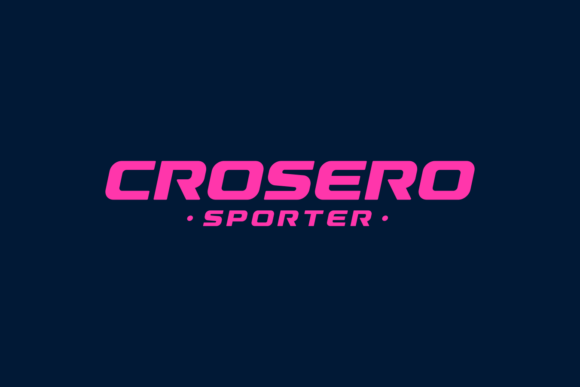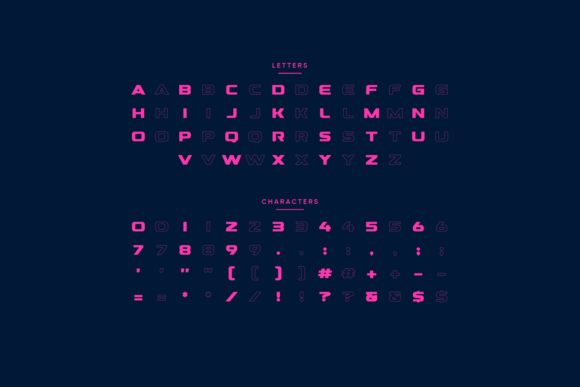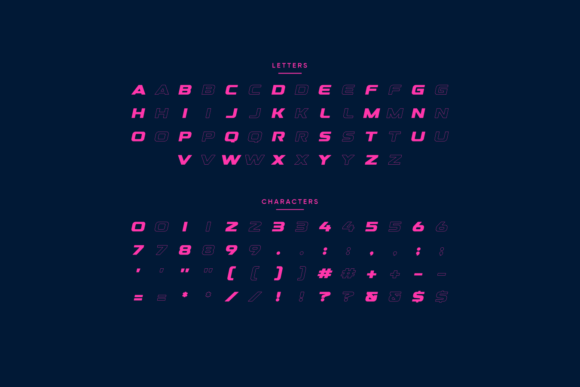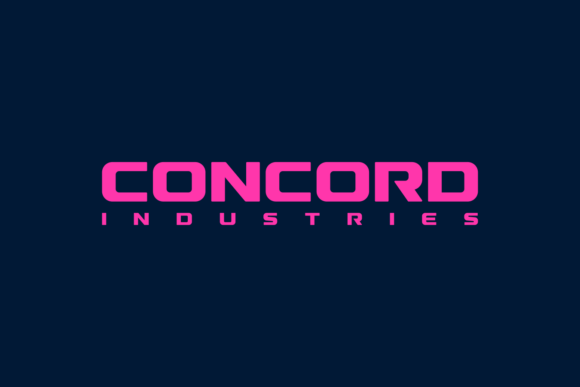
Enter the Cornsro Font, a game-changing modern display typeface engineered to deliver a high-impact, high-speed aesthetic. With its sleek, aerodynamic curves and ultra-wide, italicized stance, Cornsro Font is the ultimate choice for designers seeking to make a bold statement. Whether you’re crafting a sports branding, gaming interface, or tech-focused marketing material, Cornsro Font’s clean, industrial lines ensure a professional, heavy-duty presence that commands attention. By incorporating Cornsro Font into your design arsenal, you’ll unlock a world of creative possibilities and take your projects to the next level.
Cornsro Font Key Features
- Font Family: Cornsro Font is a sans-serif font family designed for modern and minimalist designs.
- Unique Characteristics: Features a unique blend of modern and vintage elements, giving it a distinctive look that sets it apart from other sans-serif fonts.
Cornsro Font Review
I recently had the chance to work with the Cornsro font, and overall, I was quite impressed. Here are my thoughts.
- Unique Character**: Cornsro has a distinct personality that sets it apart from other sans-serif fonts. Its quirky feel makes it perfect for designs that need a bit of whimsy.
- Legibility**: Despite its unconventional design, Cornsro is surprisingly easy to read, even at smaller font sizes.
- Scalability**: The font looks great on a wide range of devices and screen sizes, from small mobile screens to large desktop monitors.
- Lack of Consistency**: While Cornsro’s unique character is a strength, it can also be a weakness. The font’s irregularities can make it difficult to use in certain contexts, such as in large blocks of text.
- Not Suitable for Body Text**: Due to its irregularities and lack of consistency, Cornsro is best used as a headline or accent font, rather than for body text.
Cornsro is a great addition to any designer’s toolkit. While it may not be suitable for every project, its unique character and legibility make it perfect for designs that need a bit of flair. With careful use, Cornsro can add a touch of personality to your designs and help them stand out from the crowd.
Cornsro Font: A Practical Application Guide
Cornsro Font is ideal for creative and artistic projects, such as:
– Designing posters and flyers.
– Creating digital art and illustrations.
– Writing and publishing e-books and magazines.
– Developing brand identities and logos.
Getting the Most Out of Cornsro Font
To get the most out of Cornsro Font, try experimenting with different font sizes, styles, and combinations with other fonts. You can also use it in conjunction with other design elements, such as images and graphics, to create a unique and eye-catching visual